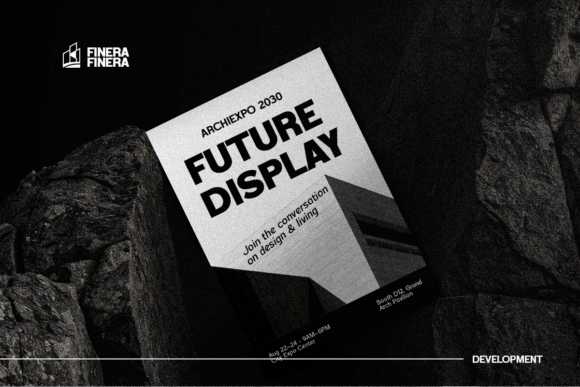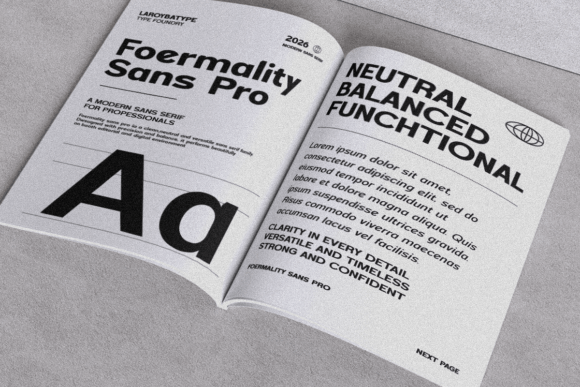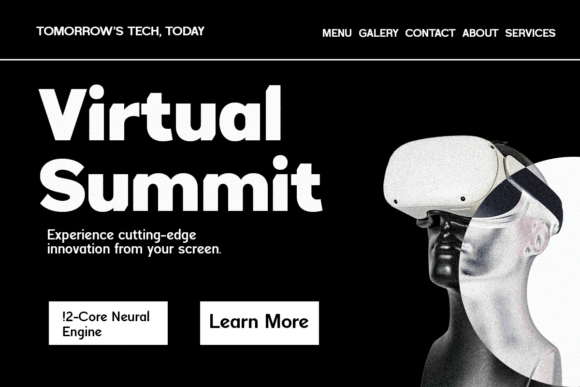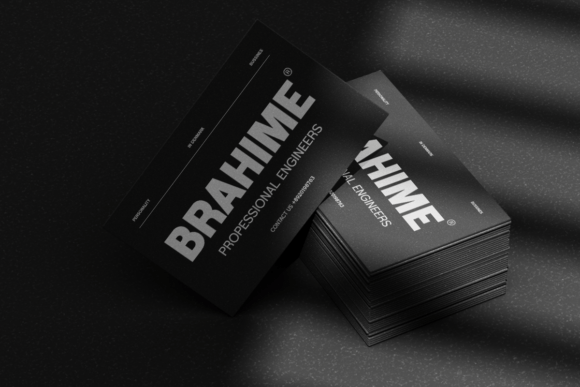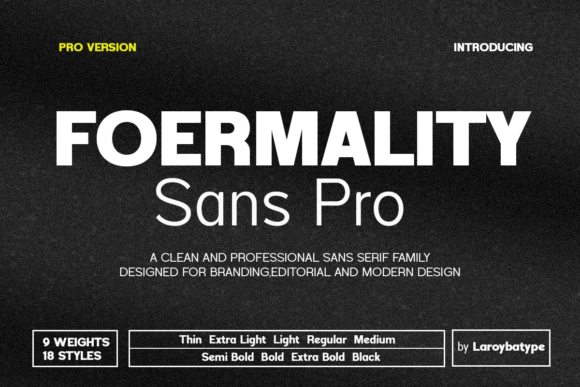
Foermality Sans Pro Font: Elevate Your Design with Unyielding Clarity
In the realm of typography, few fonts manage to strike a balance between aesthetics and functionality. Foermality Sans Pro, a comprehensive sans serif family font, is one such exceptional typeface that has been designed to establish a foundation of unyielding clarity. This “Pro” version of the Foermality Sans font family is a masterclass in geometric balance and neutral sophistication, making it an ideal choice for high-stakes branding, editorial excellence, and modern interface design.
A Versatile Family of 9 Weights and 18 Styles
One of the standout features of Foermality Sans Pro is its expansive range of 9 weights, from a whisper-thin Thin to a monolithic Black, across 18 distinct styles. This versatility ensures that designers can create a typographic hierarchy that is both nuanced and impactful. Whether you’re working on a corporate identity, a tech startup ecosystem, or a high-end editorial layout, Foermality Sans Pro provides the flexibility to adapt to any design requirement.
Exceptional Legibility for Body Copy and Headlines
Foermality Sans Pro’s balanced apertures and rhythmic spacing make it exceptionally legible, whether it’s used for large-scale headlines or dense body copy. The font’s design ensures that it remains clear and readable even at small sizes, making it perfect for a wide range of applications, from print and digital publications to user interfaces and web design.
Establishing a Professional Presence
Foermality Sans Pro is an extraordinary choice for designers and crafters looking to establish a signature professional presence. Its clean lines, geometric balance, and neutral sophistication make it an ideal font for corporate identities, tech startup ecosystems, and global design systems. The font’s versatility and legibility ensure that it can be used across various mediums, from business cards and brochures to websites and mobile apps.
Key Features of Foermality Sans Pro
• 9 weights and 18 styles: From Thin to Black, with 18 distinct styles to choose from, ensuring legendary versatility for any typographic hierarchy.
• Geometric balance and neutral sophistication: A masterclass in clean design, perfect for high-stakes branding, editorial excellence, and modern interface design.
• Exceptional legibility: Balanced apertures and rhythmic spacing ensure that Foermality Sans Pro remains clear and readable, even at small sizes.
• Multilingual support: Foermality Sans Pro supports a wide range of languages, making it a great choice for global design systems.
Use Cases for Foermality Sans Pro
Foermality Sans Pro is a versatile font that can be used in a wide range of applications, including:
• Corporate identities: Establish a professional presence with Foermality Sans Pro’s clean lines and geometric balance.
• Tech startup ecosystems: Perfect for modern and innovative brands, Foermality Sans Pro adds a touch of sophistication and elegance.
• High-end editorial layouts: Foermality Sans Pro’s exceptional legibility and versatility make it an ideal choice for publications and magazines.
• Global design systems: With its multilingual support and consistent design, Foermality Sans Pro is perfect for global brands and design systems.
Foermality Sans Pro is a comprehensive sans serif family font that offers a masterclass in geometric balance and neutral sophistication. With its exceptional legibility, versatility, and professional presence, it’s an ideal choice for designers and crafters looking to elevate their designs. Whether you’re working on a corporate identity, a tech startup ecosystem, or a high-end editorial layout, Foermality Sans Pro is a font that can help you establish a foundation of unyielding clarity.